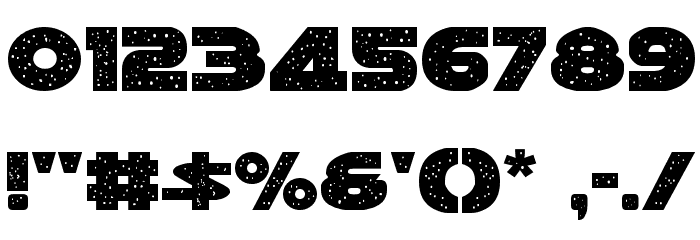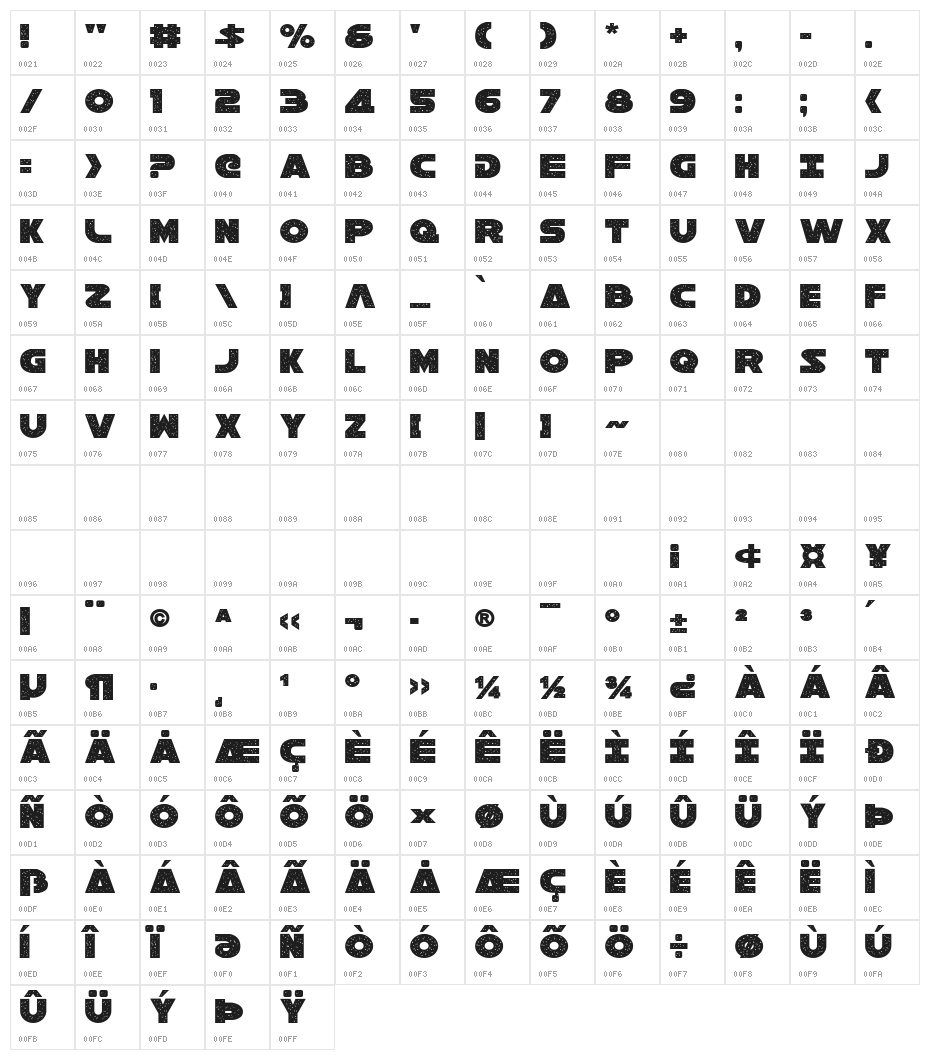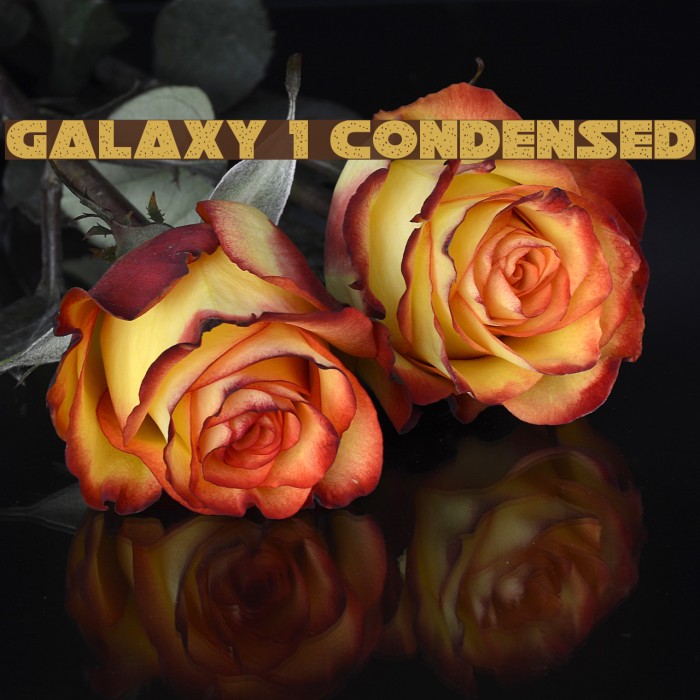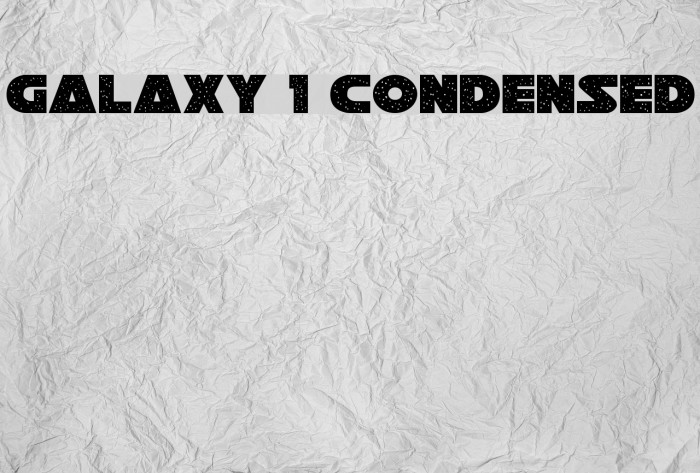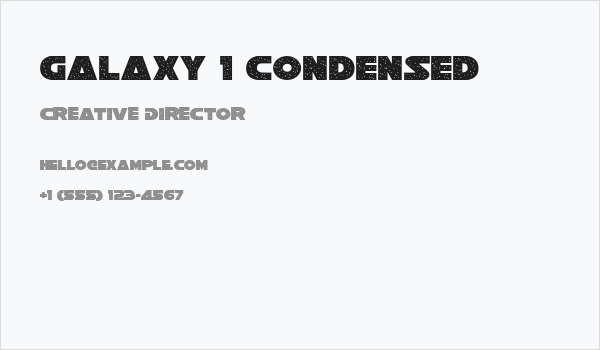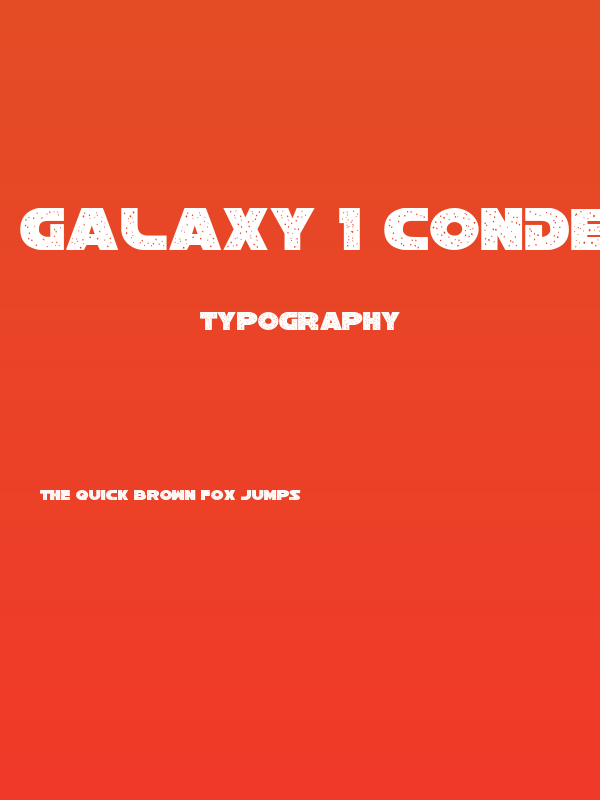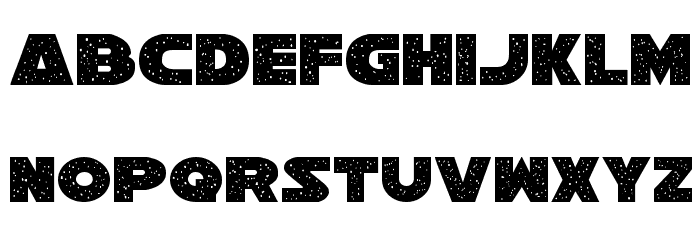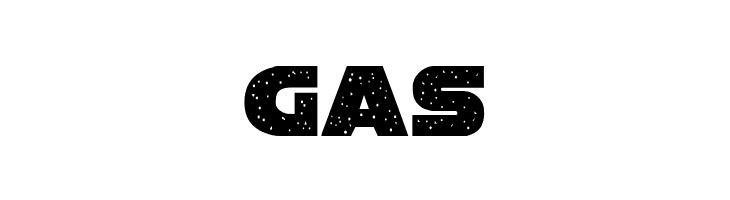
Galaxy 1 Condensed Font
Galaxy 1 Condensed Description
This font features a bold, futuristic design with a unique starry texture filling each character. The letters are all uppercase and have a condensed width, giving them a compact appearance. The design is reminiscent of space themes, with a playful yet modern aesthetic. The characters are evenly spaced, maintaining a consistent look across the board. The numbers and special characters follow the same stylistic approach, ensuring uniformity throughout. This font is ideal for projects that require a distinctive and eye-catching typeface, particularly those related to science fiction or cosmic themes.
| Proposed Projects | Ideal for sci-fi movie posters, space-themed event invitations, or cosmic-themed branding. |